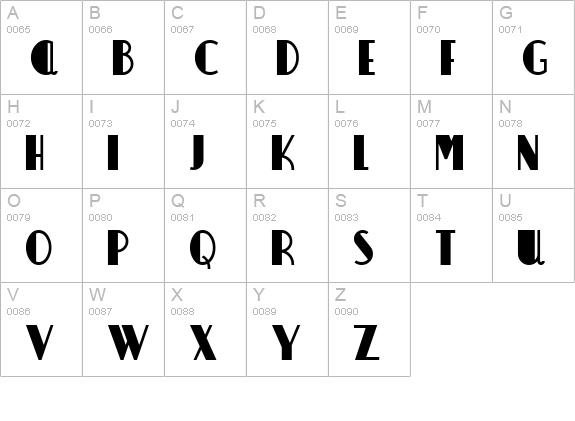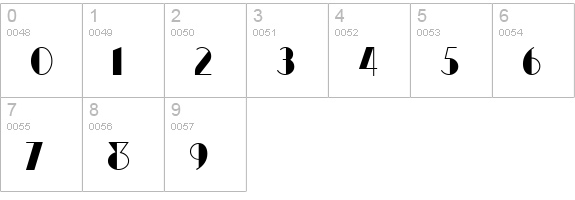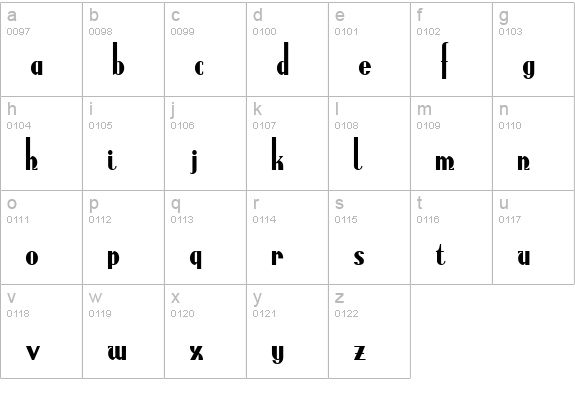
AnchorSteamNF Font Details
AnchorSteamNF is a beautifully crafted font that exudes elegance and sophistication. With its sleek lines and modern design, this font is perfect for a wide range of design projects, from branding to editorial design. The versatility of AnchorSteamNF makes it a must-have font for any designer looking to add a touch of class to their work. What sets AnchorSteamNF apart is not only its stunning aesthetics but also the fact that it is available for free download at FontsMarket.com. Yes, you heard that right - this high-quality font can be yours at no cost, allowing you to elevate your designs without breaking the bank. So why wait? Download AnchorSteamNF today and take your design projects to the next level!